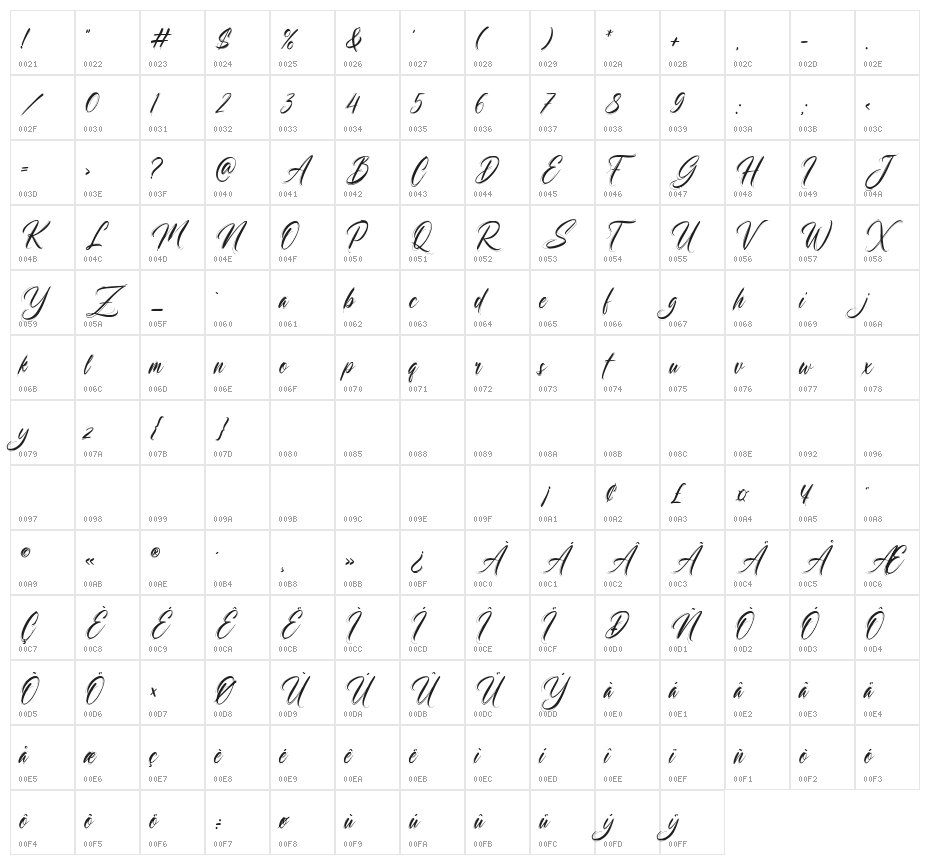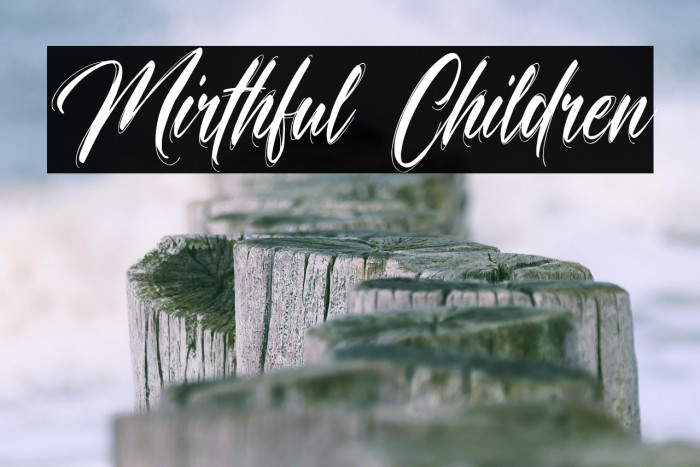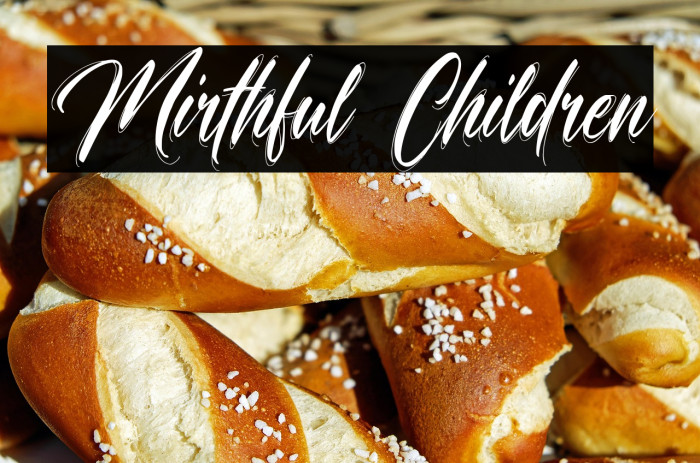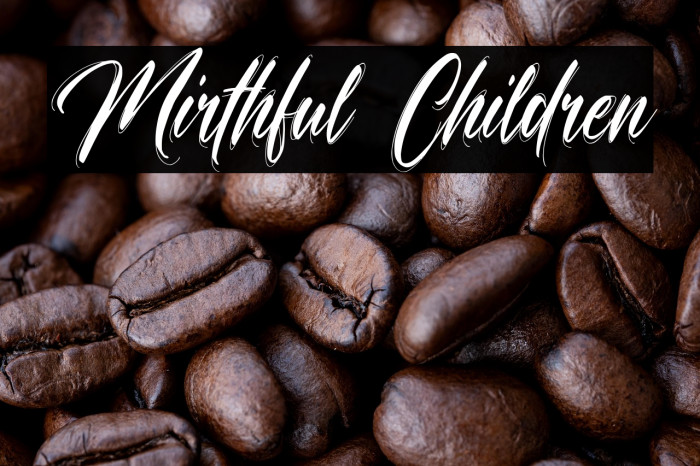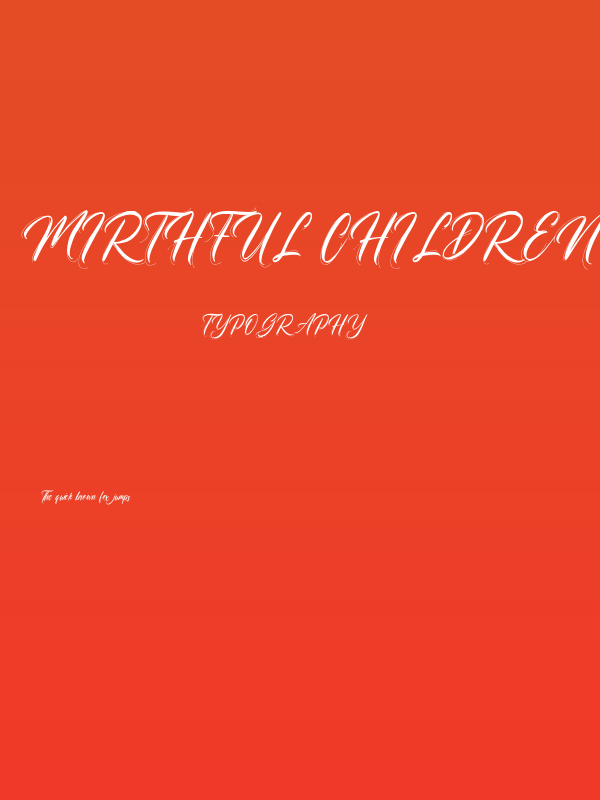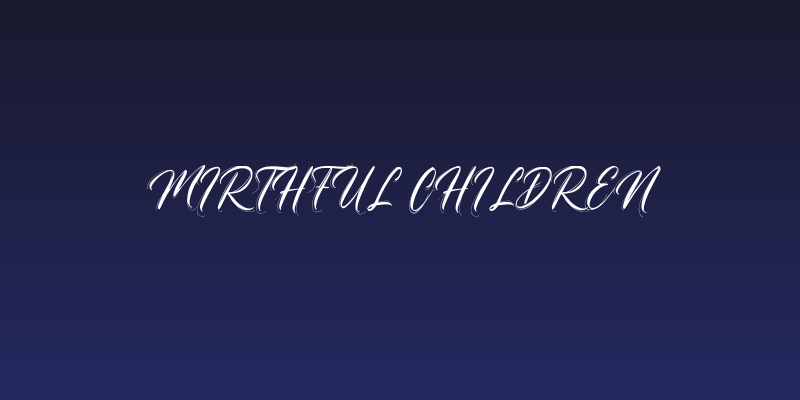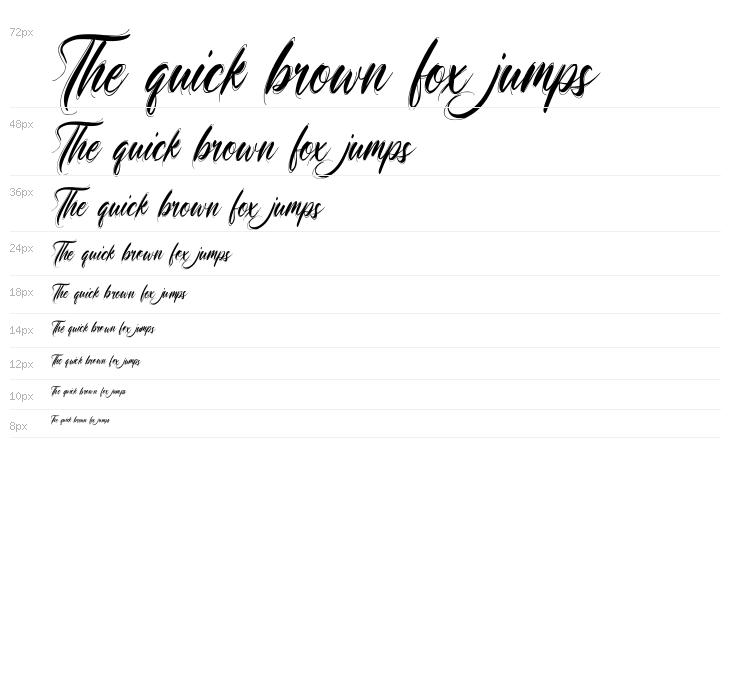
Mirthful Children Font
Mirthful Children Description
This font exudes a lively and playful energy, characterized by its flowing, cursive style. The letters are elegantly connected, with each character featuring delicate, sweeping strokes that give it a sense of movement and grace. The uppercase letters are bold and prominent, while the lowercase letters maintain a consistent flow, enhancing readability. The numerals are equally stylish, maintaining the font's overall whimsical aesthetic. Special characters are integrated seamlessly, adding to the font's versatility. This font is perfect for projects that require a touch of elegance and playfulness.
Use CaseHeadlines, Logos, Invitations
Proposed ProjectsIdeal for wedding invitations, greeting cards, branding, and playful design projects.